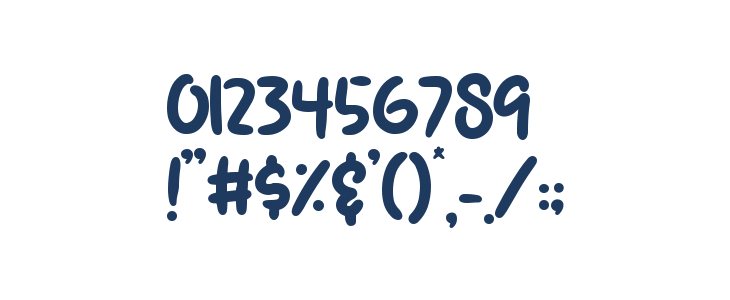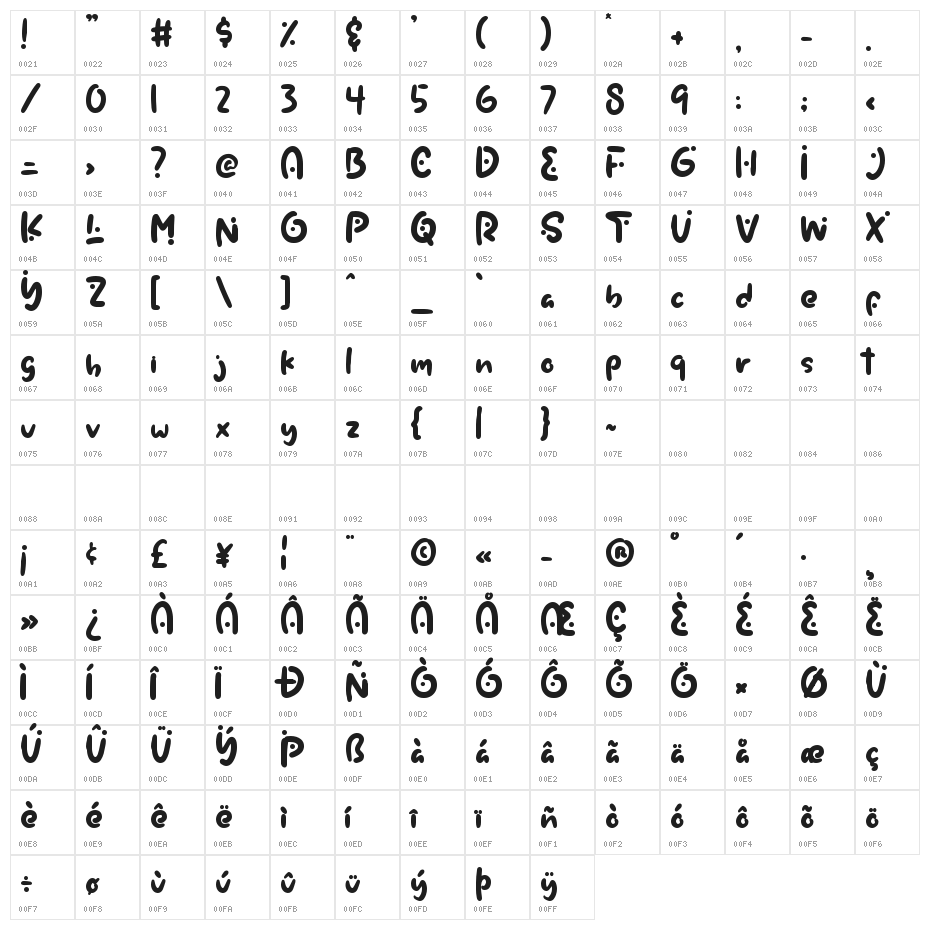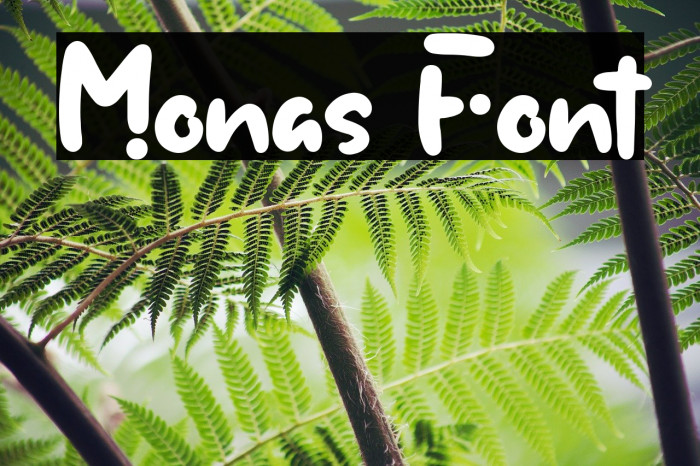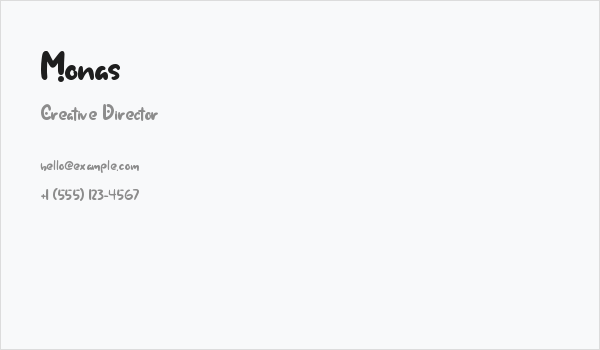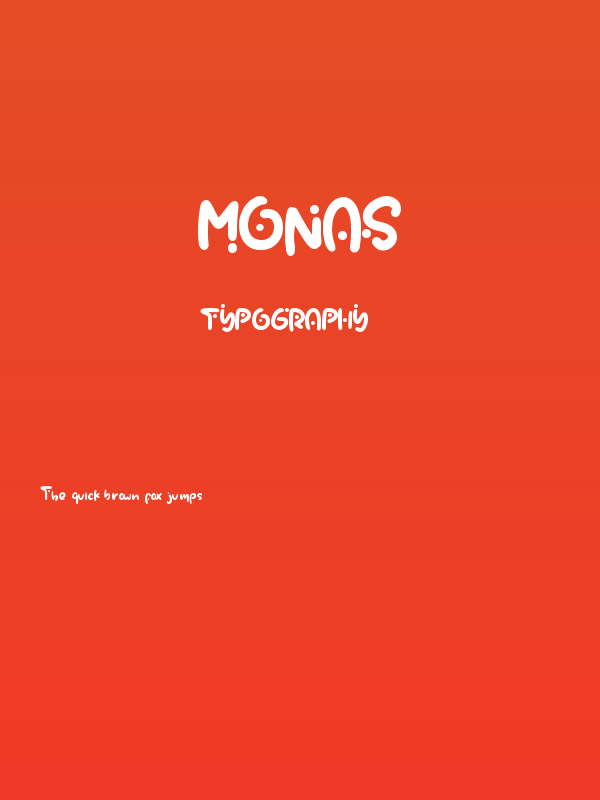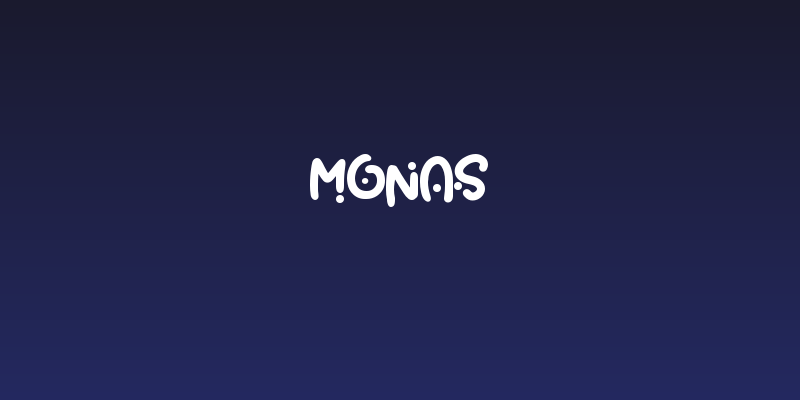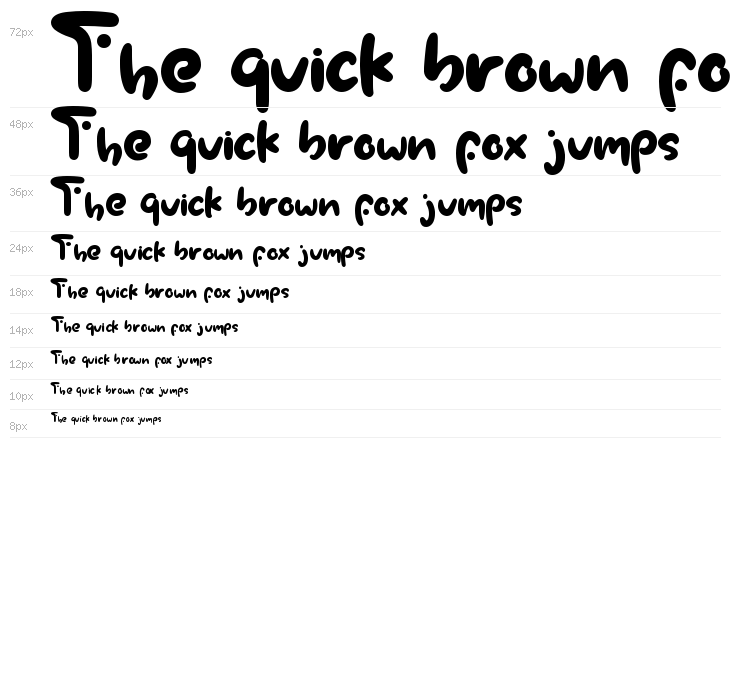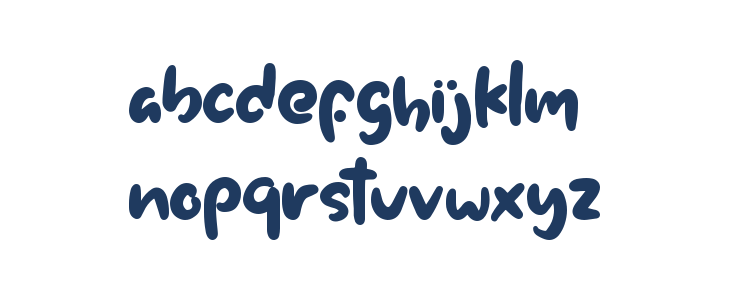
Monas Font
Monas Description
This playful and bold font features a unique, rounded style with a whimsical touch. The characters are thick and have a consistent weight throughout, giving them a strong presence. The design includes distinctive dots and curves that add a fun and lively character to the text. The font maintains a consistent height across uppercase and lowercase letters, creating a harmonious look. Its boldness and rounded edges make it highly legible, even at smaller sizes. The numbers and special characters are designed to match the playful style, ensuring a cohesive appearance across all text elements.
| Proposed Projects | Ideal for children's books, playful branding, posters, and creative projects that require a fun and lively typeface. |